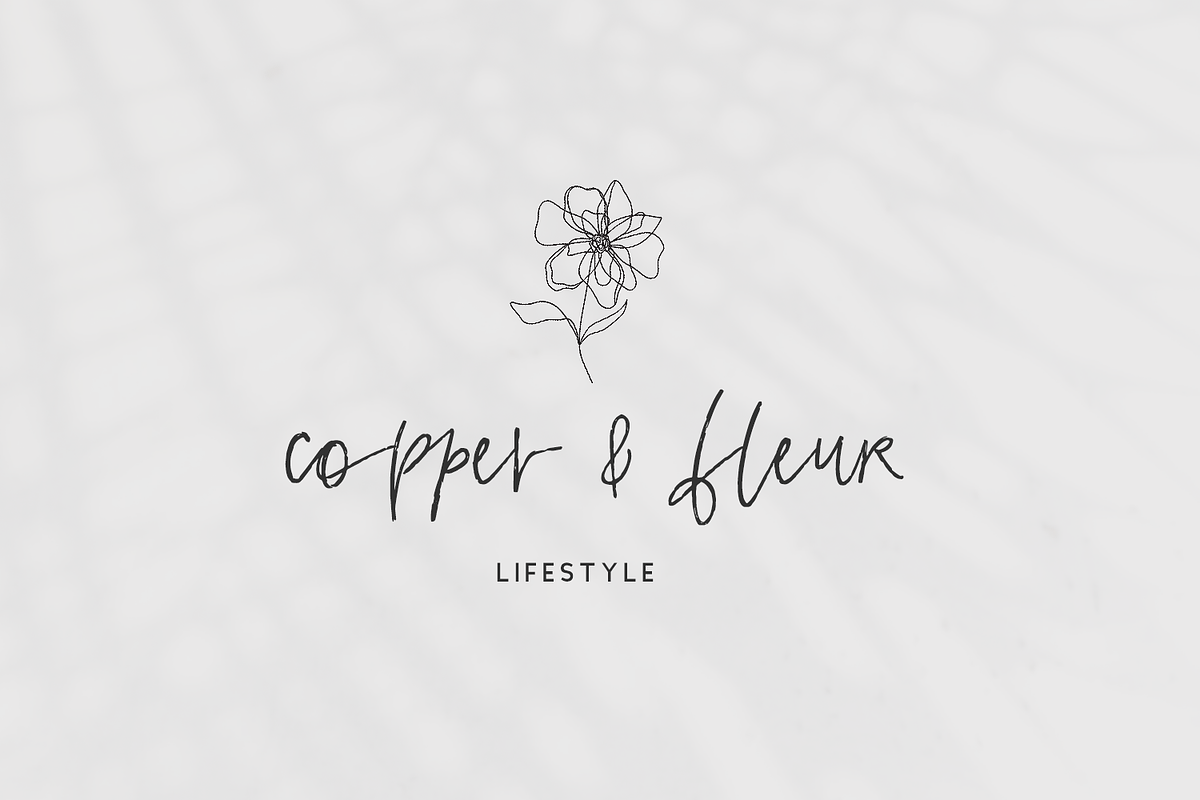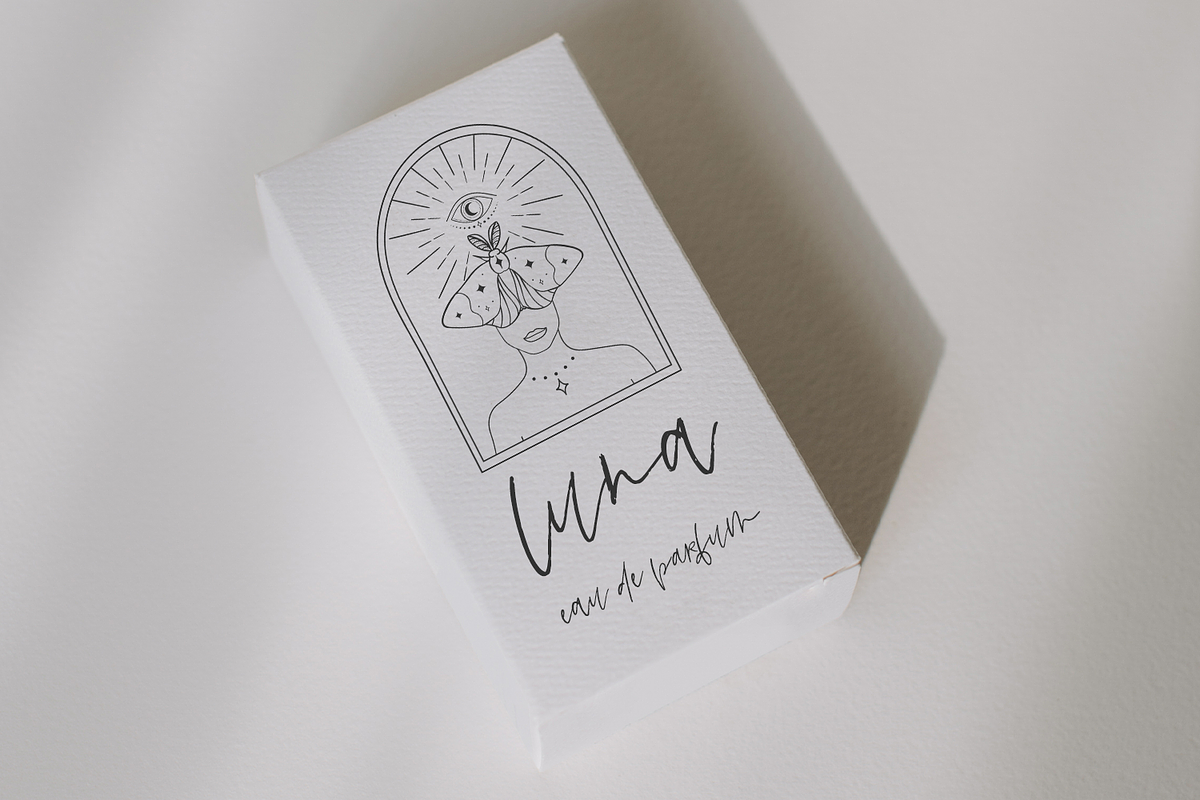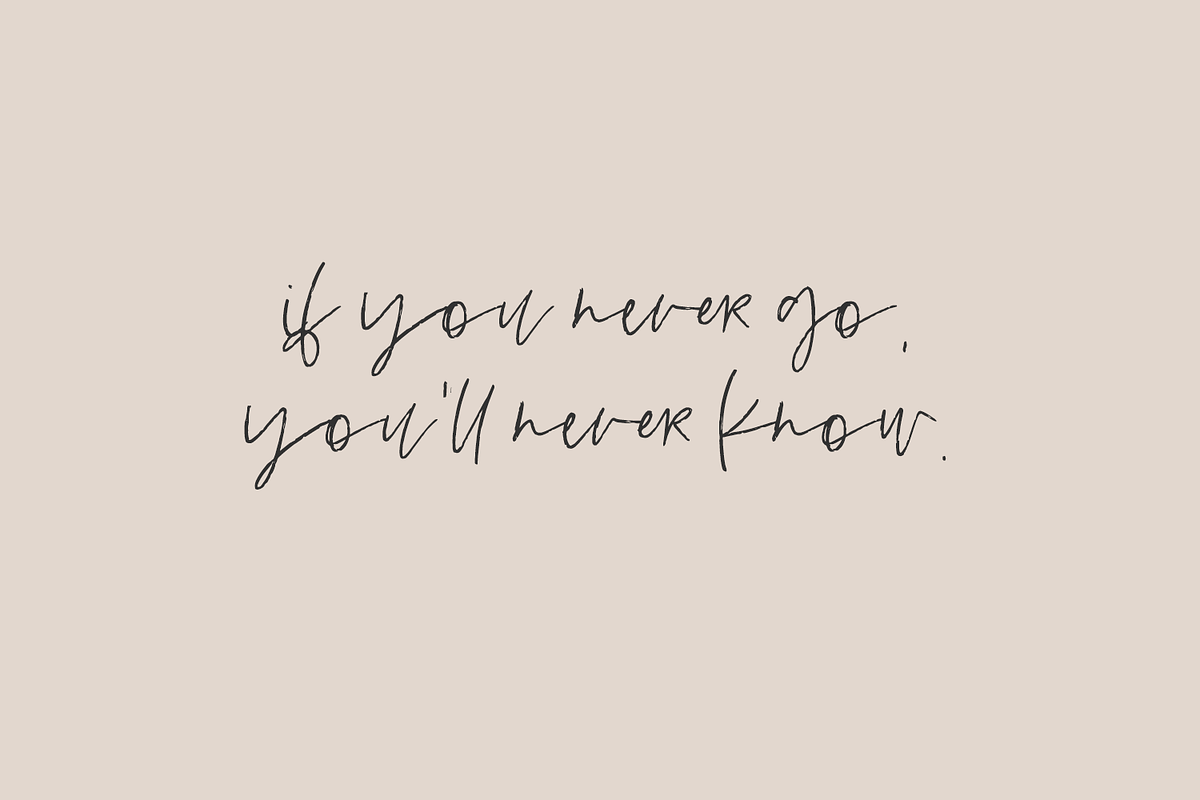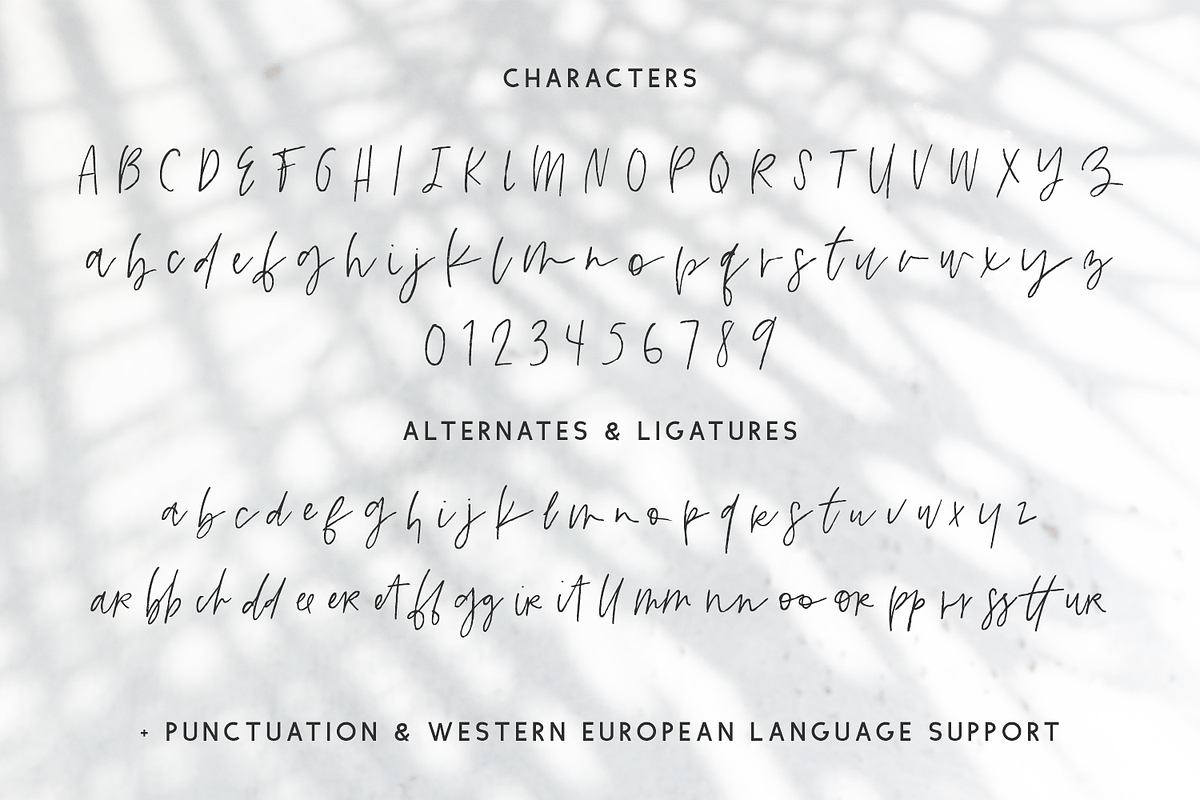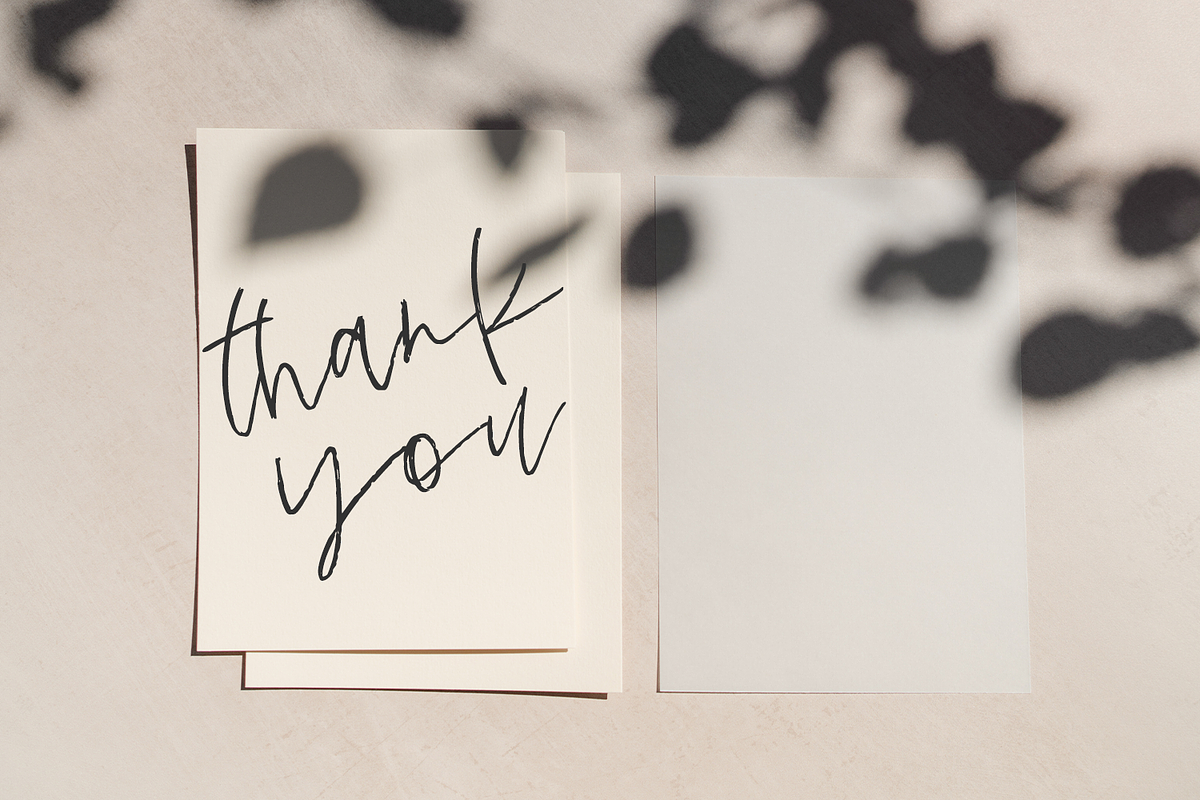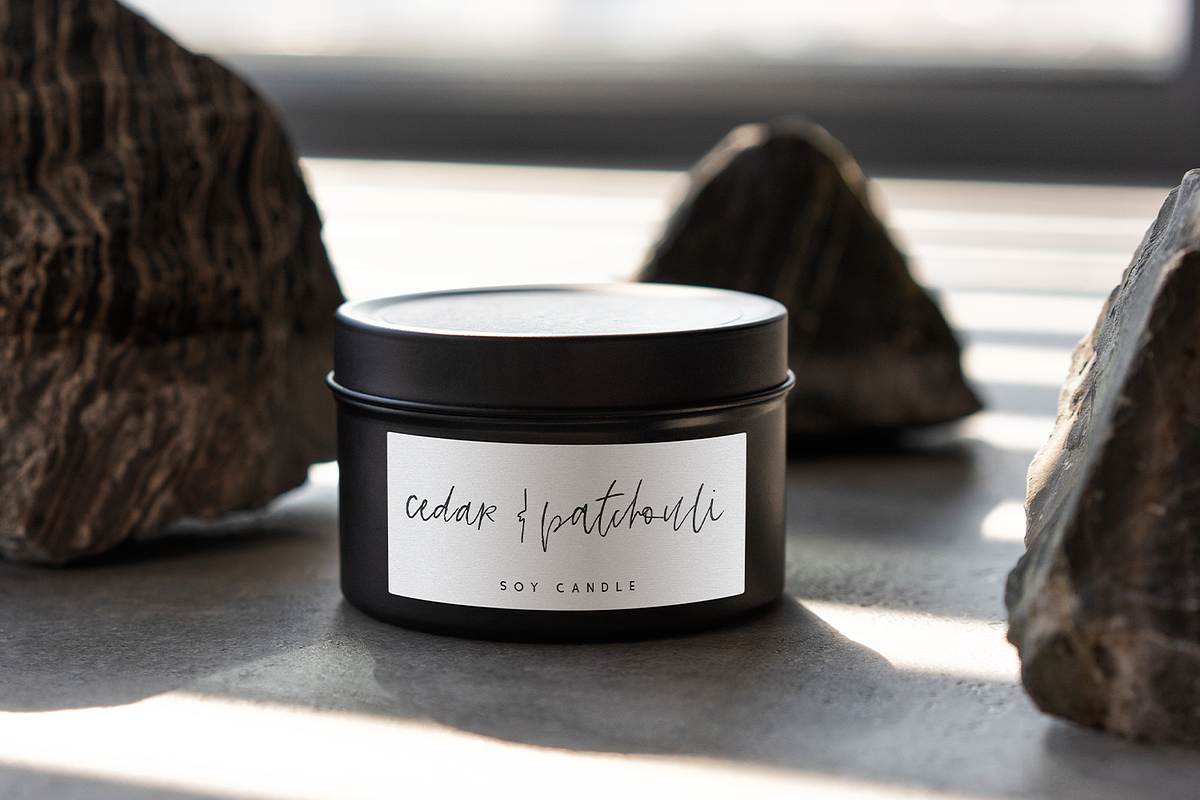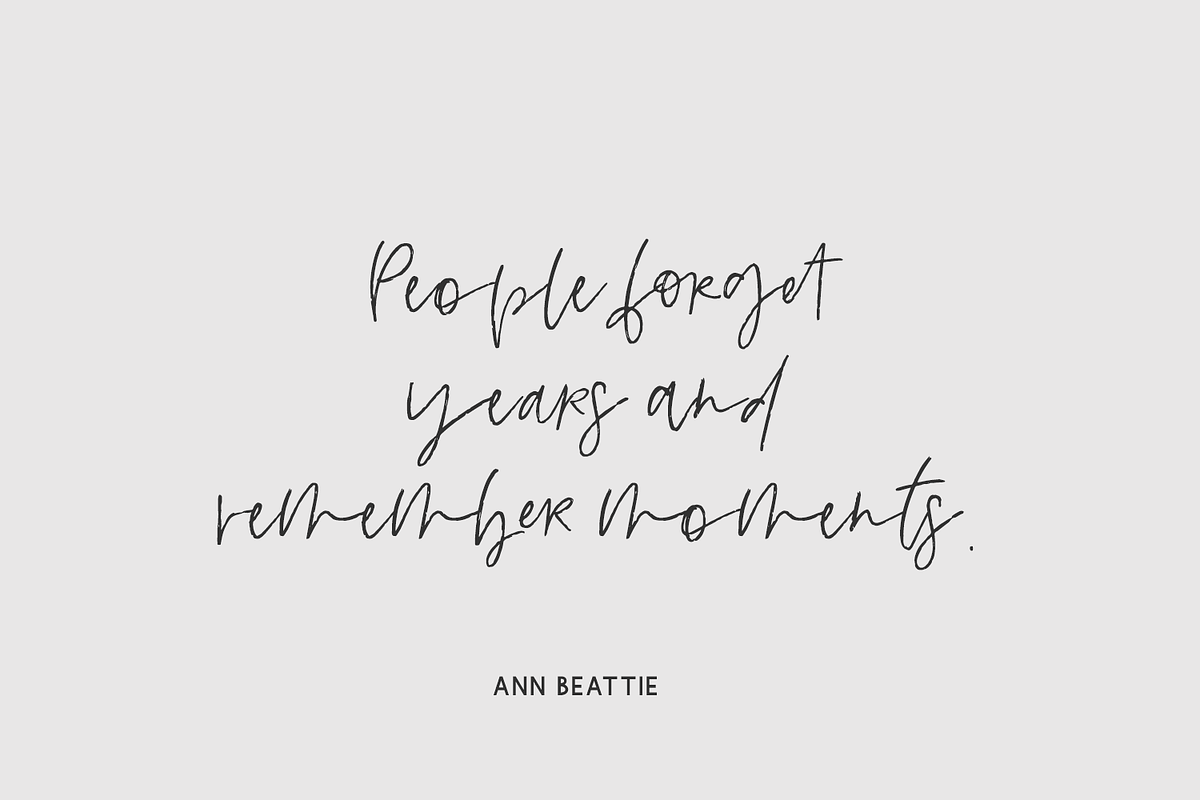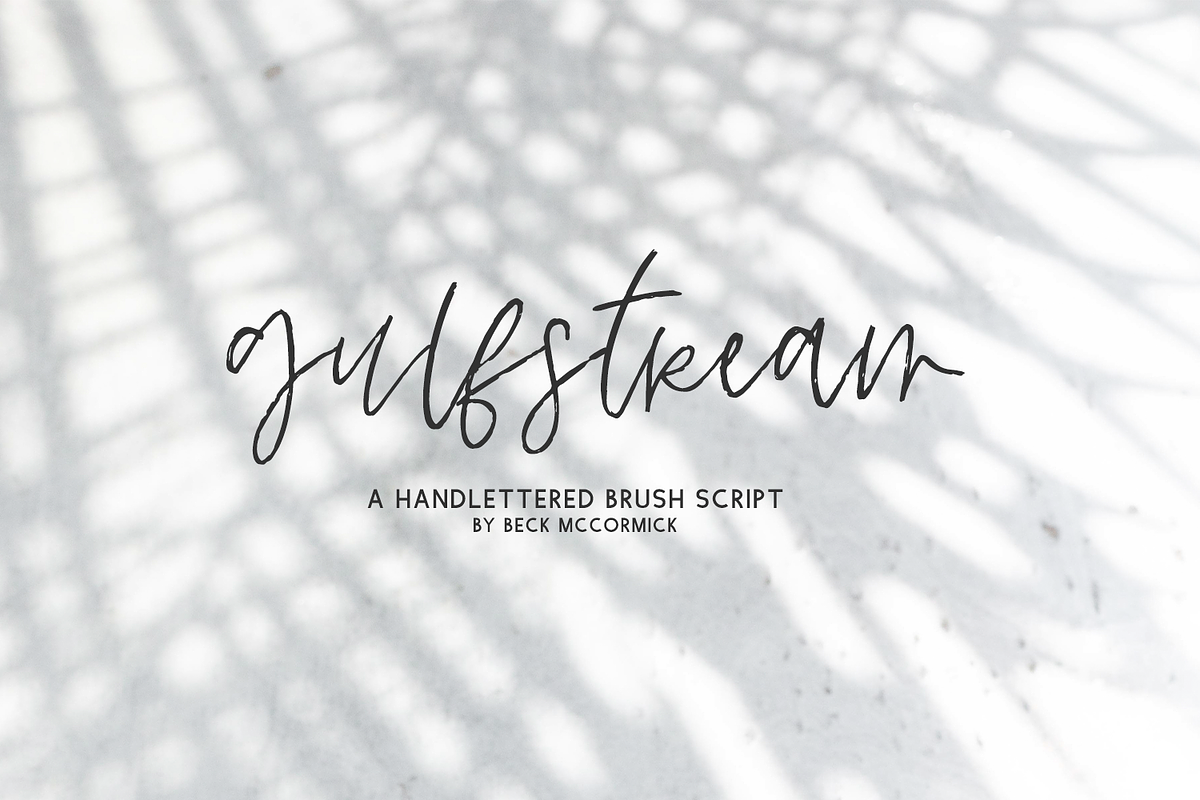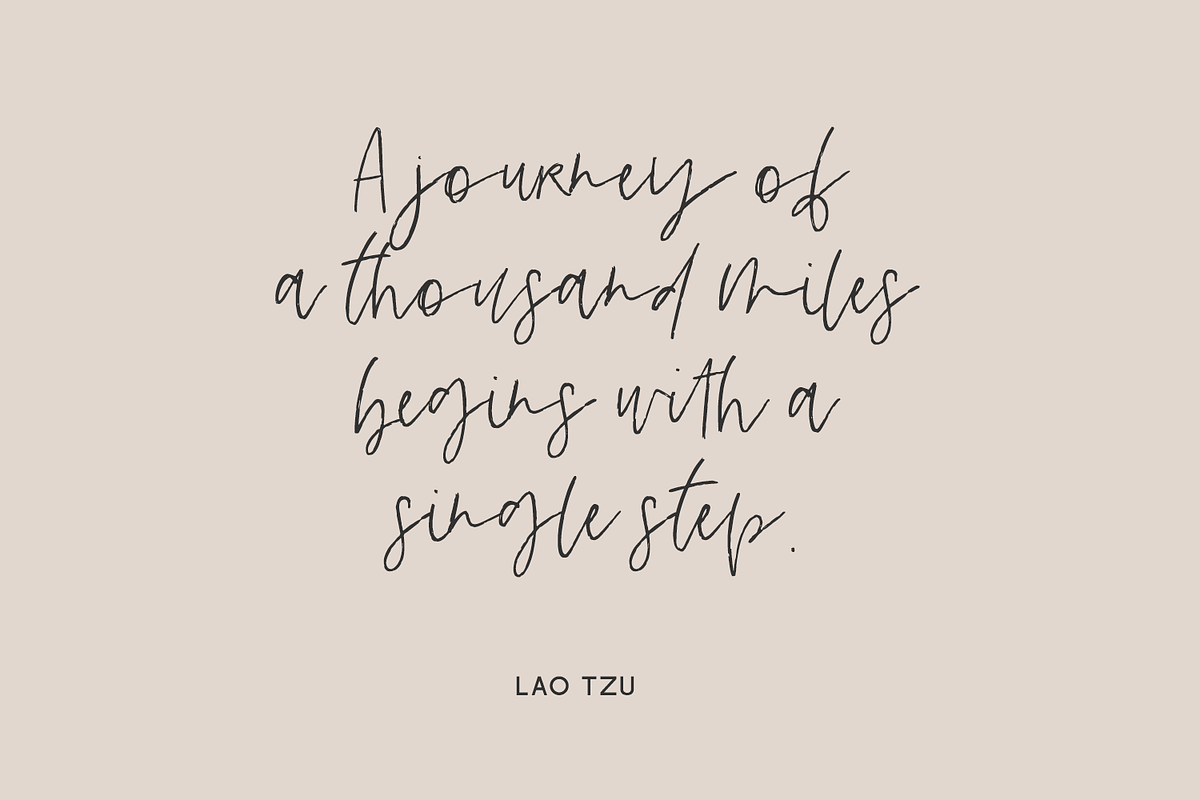
Gulfstream Brush Script
Gulfstream is best for:
- logos + branding
- website design + website accents, blog design
- clean print design, like magazines + flyers
- header elements that need handwritten touch
- quote graphics for social media
Gulfstream includes:
- full upper + lowercase characters
- numbers + punctuation
- Western European Language Support
- 26 alternate lowercase characters
- 21 ligatures - ar, bb, ch, dd, ee, er, et, ff, gg, ir, it, ll, mm, nn, oo, or, pp, rr, ss, tt, ur